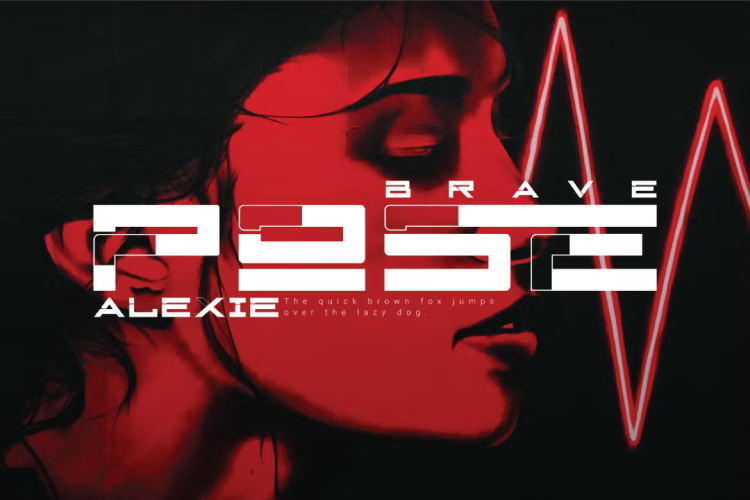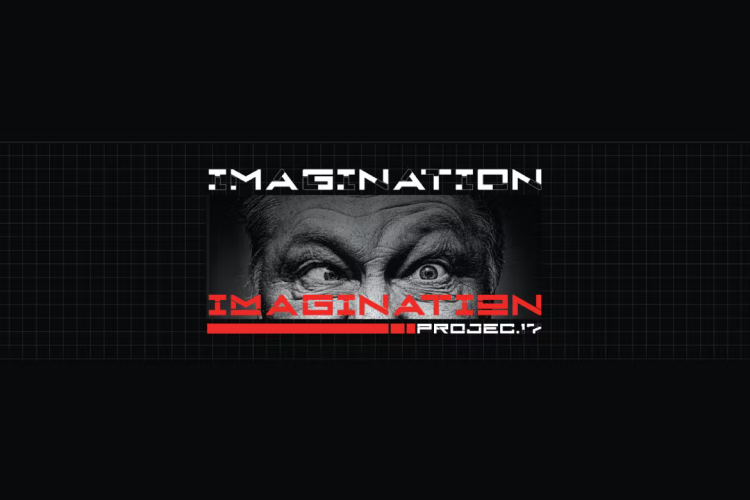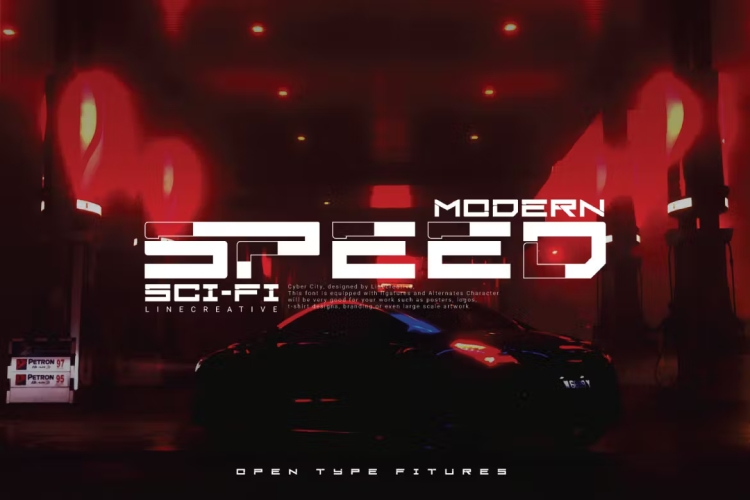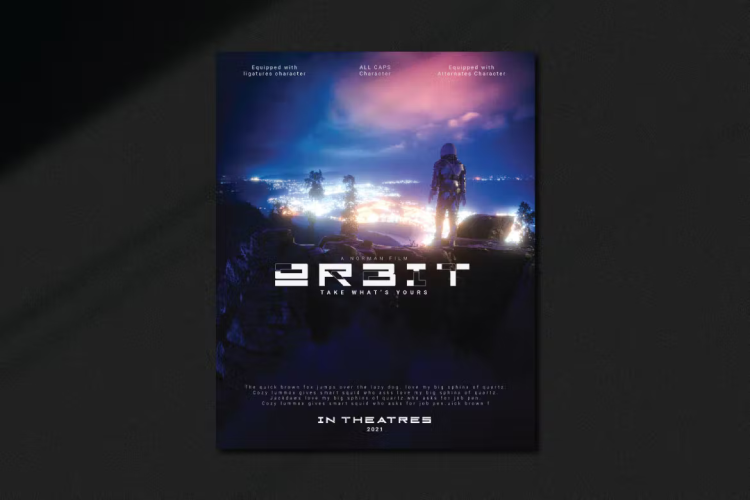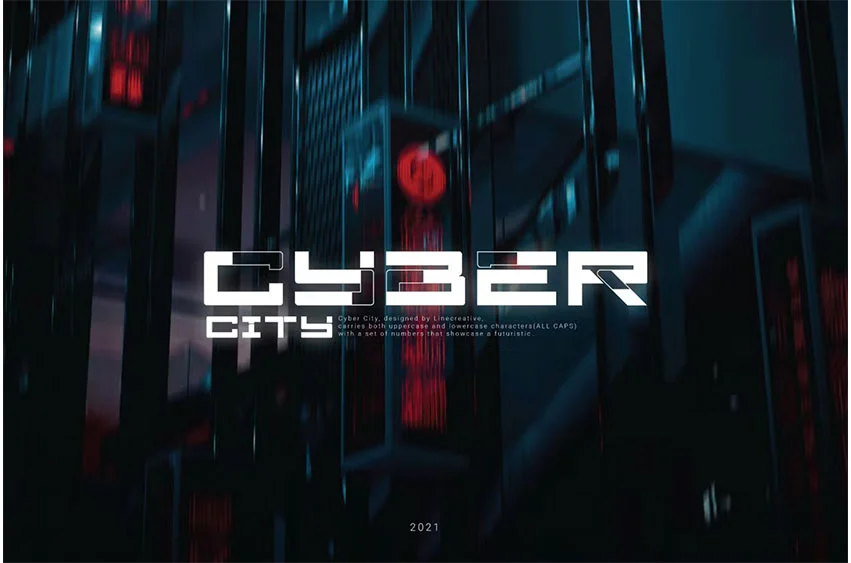
Cyber City Font
Cyber City Font is a modern san serif font that gives a clean, minimalist, and futuristic impression, this font is equipped with upper and lower case letters, but lowercase letters have holes in the letter structure and uppercase letters have slices that give a clean futuristic impression.
besides the Cyber City font is also equipped with fasteners and replacements, so that it can give the impression of an unlimited design.
Where Cyber City Font works best
Cyber City Font keeps its shape at 14 and 16 pixels, which is where interface text actually lives. Numbers and capitals stay distinguishable in tables.
Presentations are read at a distance; a clean sans with a strong bold is the safest hierarchy you can build in a hurry.
Simple letterforms survive angles, glare and movement, so Cyber City Font suits door signs, menus boards and exhibition panels.
What kind of work does Cyber City Font suit?
It sits in the Sans Serif Fonts group and reads as clean, minimalist, modern, sans serif. That makes it a candidate wherever those qualities help: headings, packaging, social graphics and brand work. Set it at the size you plan to use before deciding.